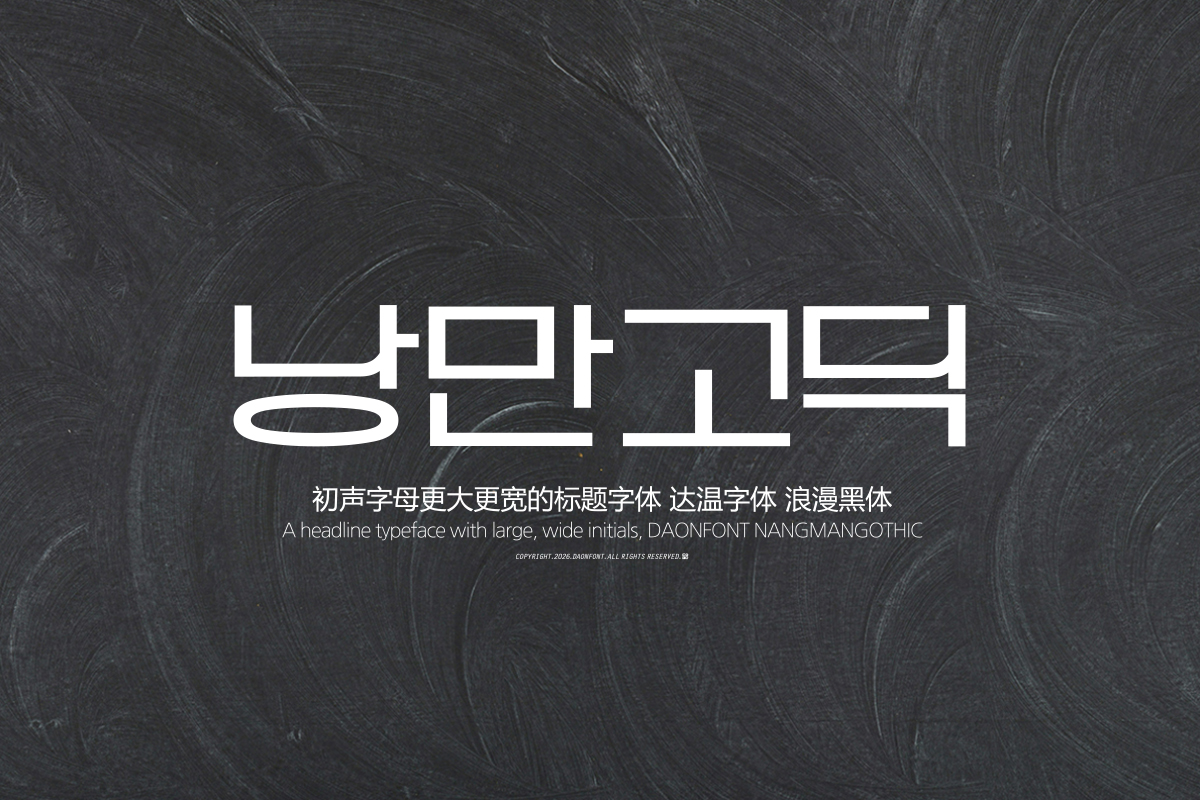
DAON NANGMANGOTHIC(M)
'NANGMAN GOTHIC' is a Gothic typeface designed for titles that conveys an emotional impression, based on a structure with large and wide initial consonants. By adding soft forms to a retro atmosphere, it captures a charm that naturally draws the eye even in simple sentences. Its wide character width and stable structure make it an excellent font for titles and copy design.